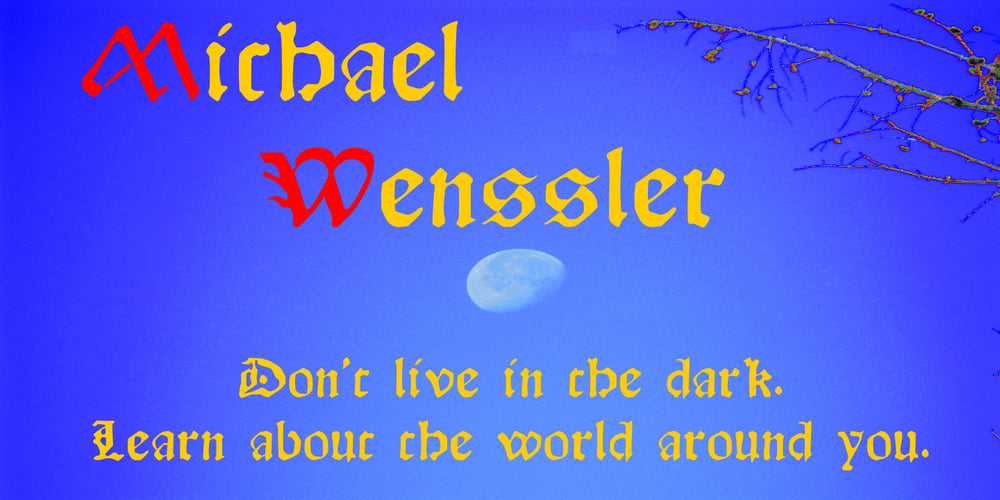
Michael Wenssler Font Family was designed by Shane Brandes and published by Proportional Lime. Michael Wenssler contains 3 styles and family package options. Michael Wenssler or Michael Wennsler, operated a press at Basel between 1472 and 1490. He apparently suffered financially to the point that he fled his creditors and came to France where he managed to print a further 10 works to bring to a total an estimated 150 books. This font face dates to 1482 and is a wonderfully well rounded and uniquely decorative example of the early blackletter style.